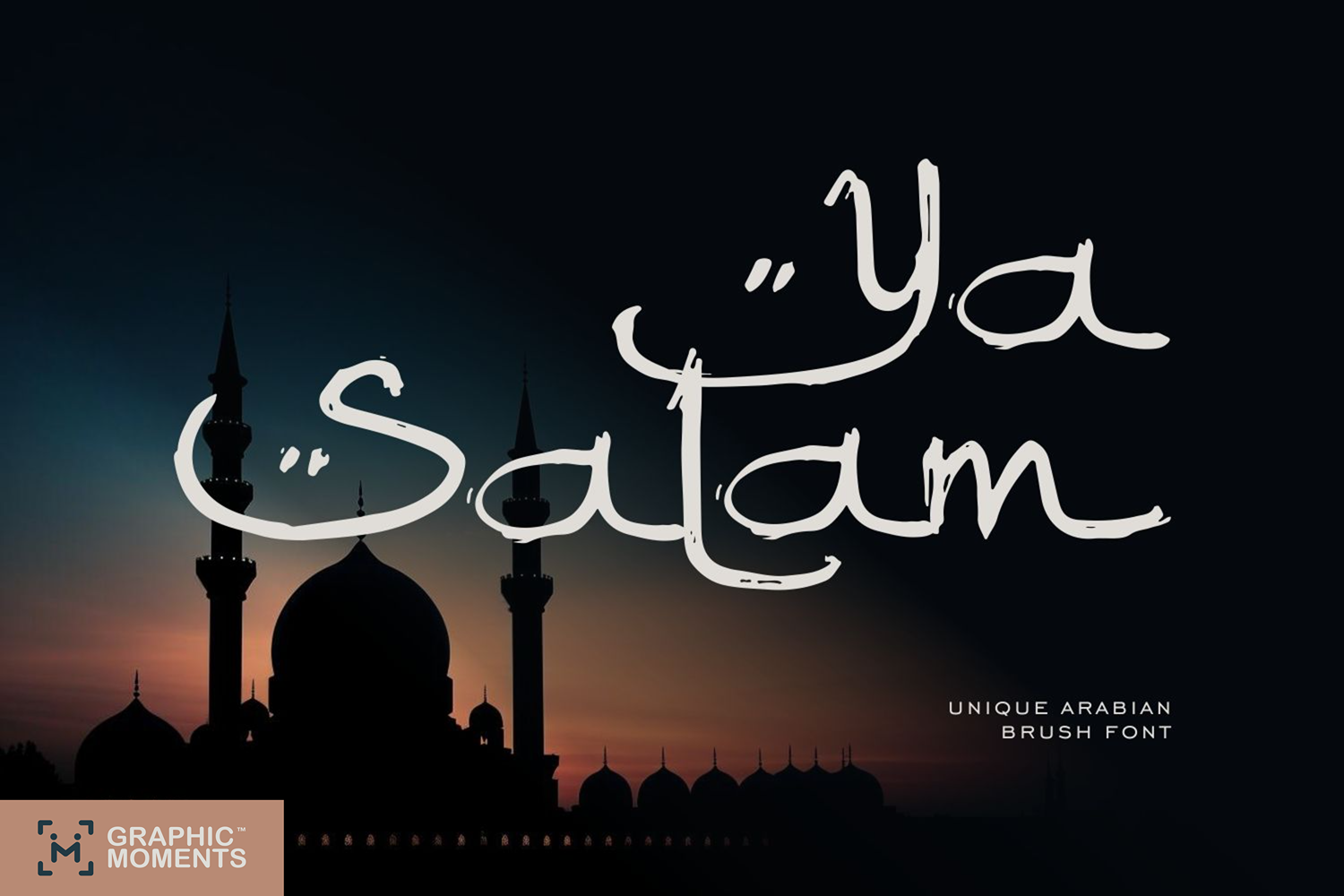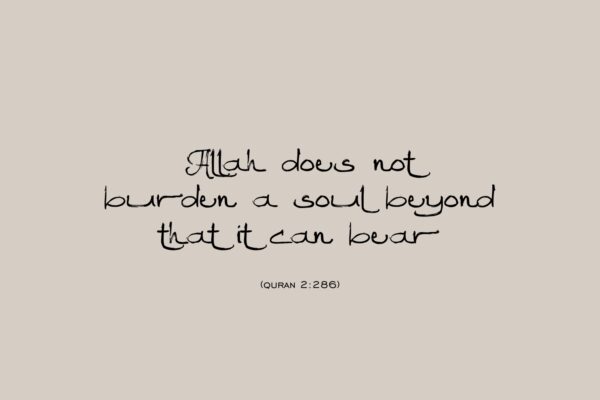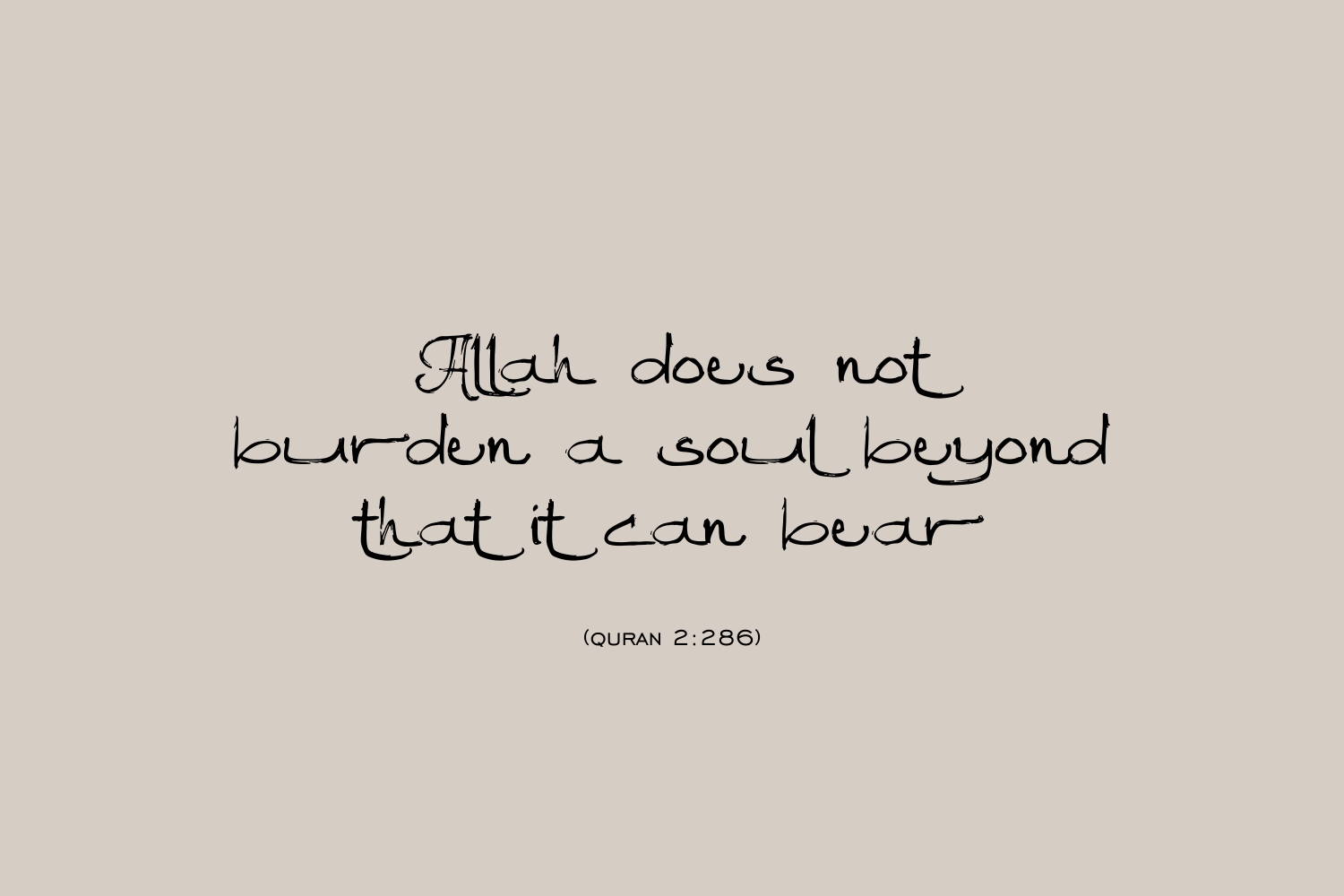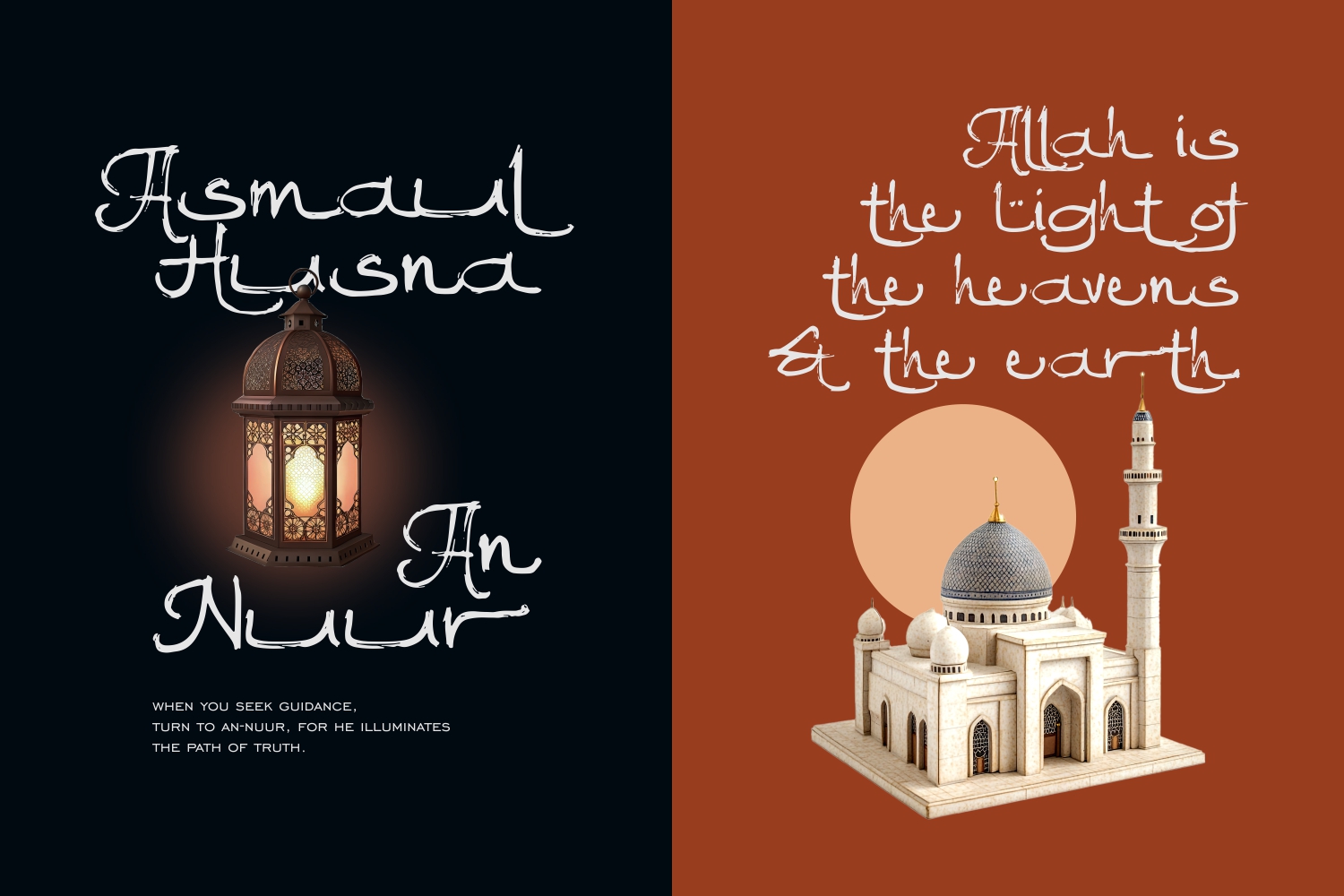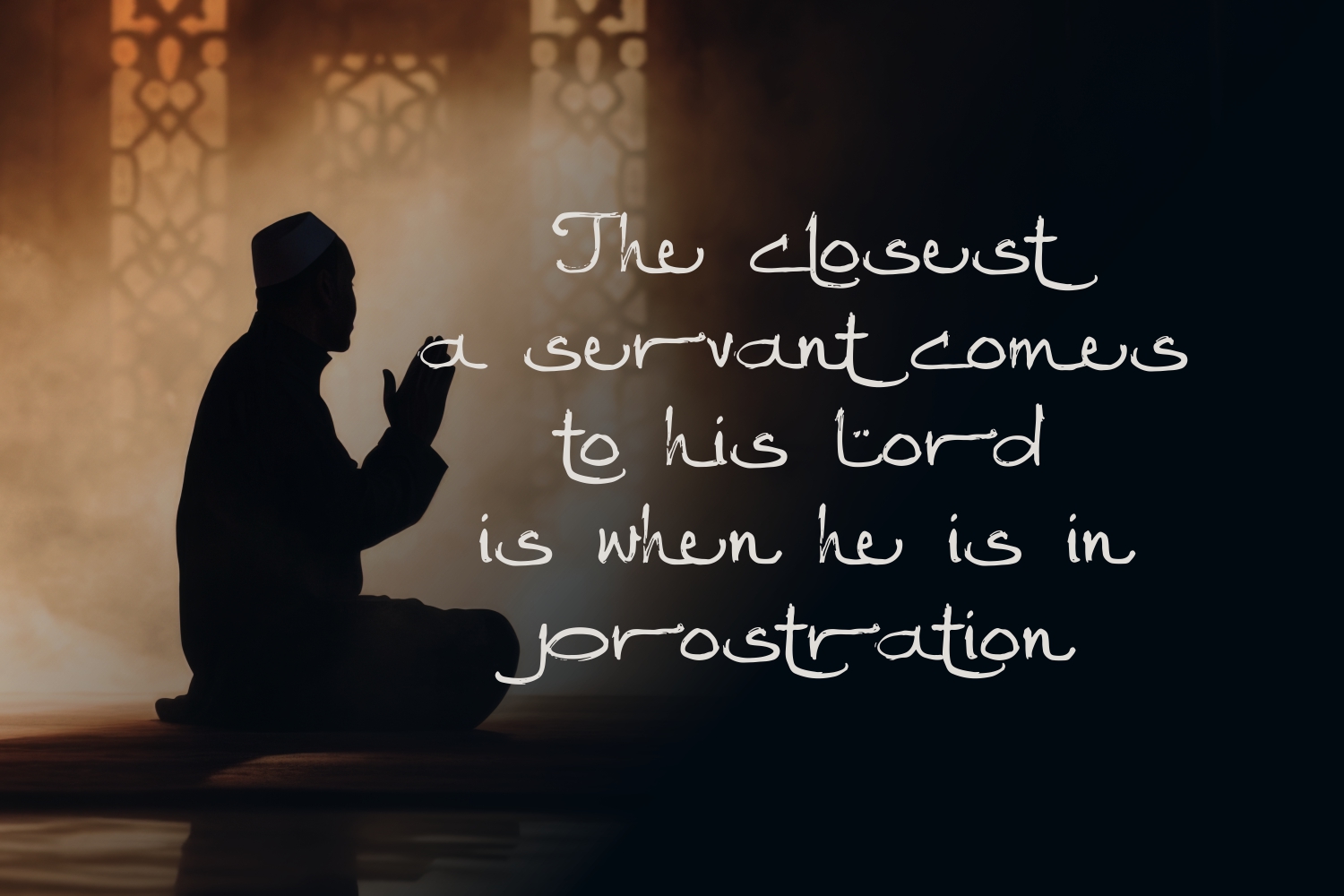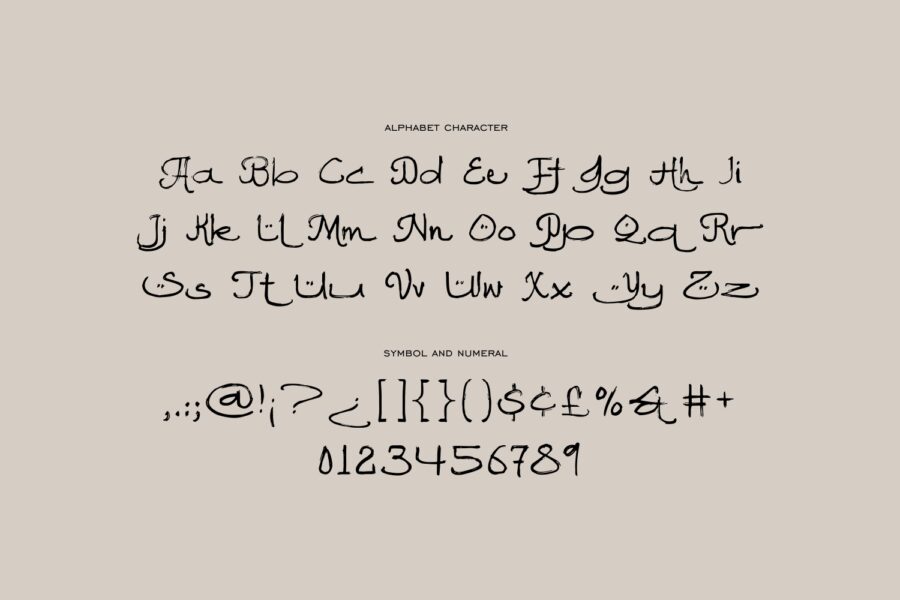
Ya Salam is a unique Arabian brush font that combines expressive strokes with a cultural touch. Its handcrafted brush style delivers a raw, authentic energy while maintaining elegance and readability. Perfect for religious quotes, spiritual messages, and cultural-themed projects, Ya Salam adds depth and emotion to every design.
With its distinct brush texture, Ya Salam stands out in posters, invitations, branding, and social media content. It is especially suitable for Ramadan and Eid celebrations, Islamic calligraphy-inspired designs, and creative projects that aim to highlight spirituality and tradition with a modern artistic flair.
Ya Salam